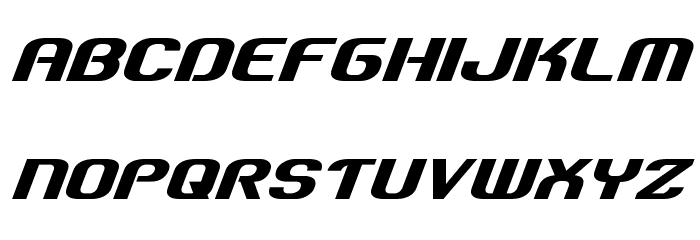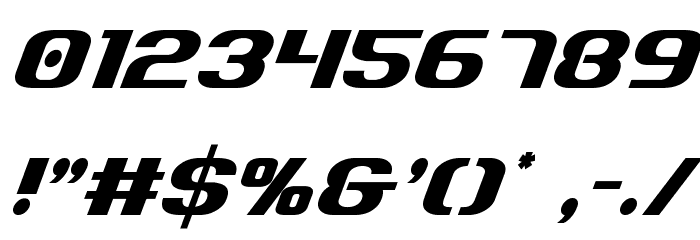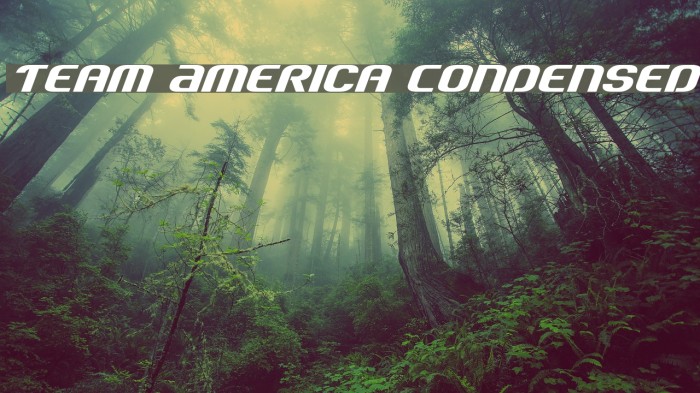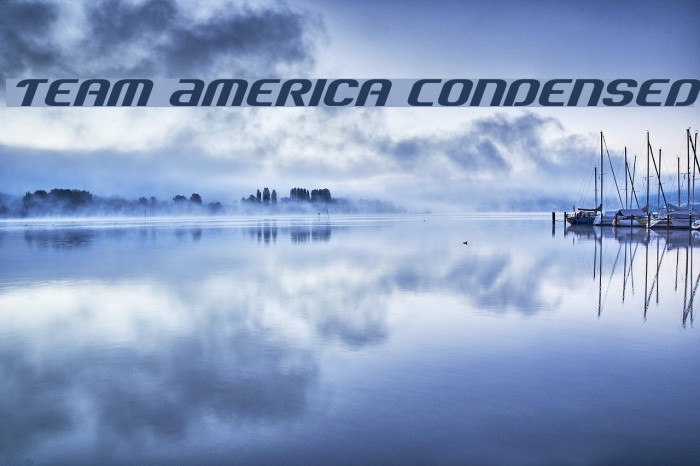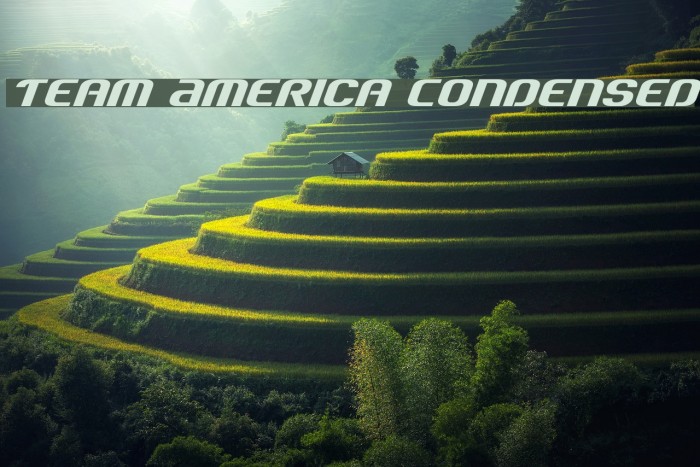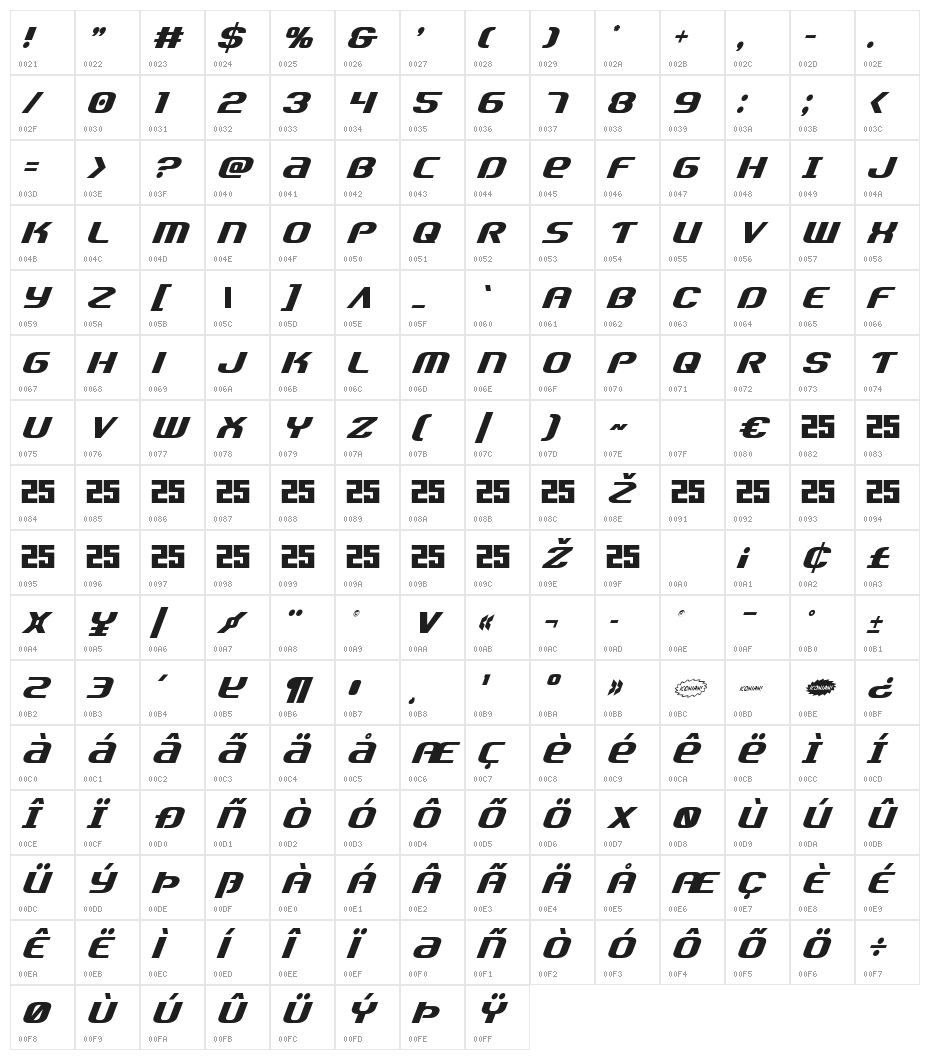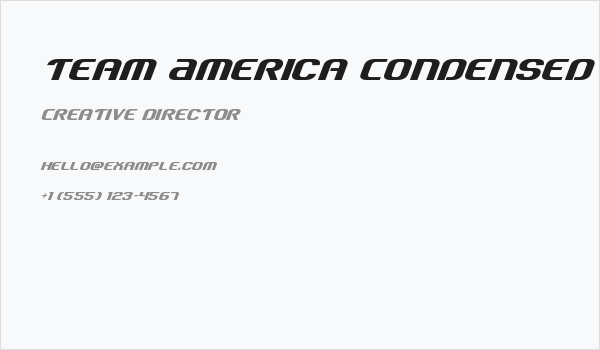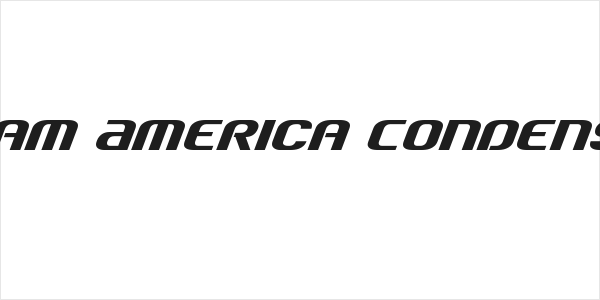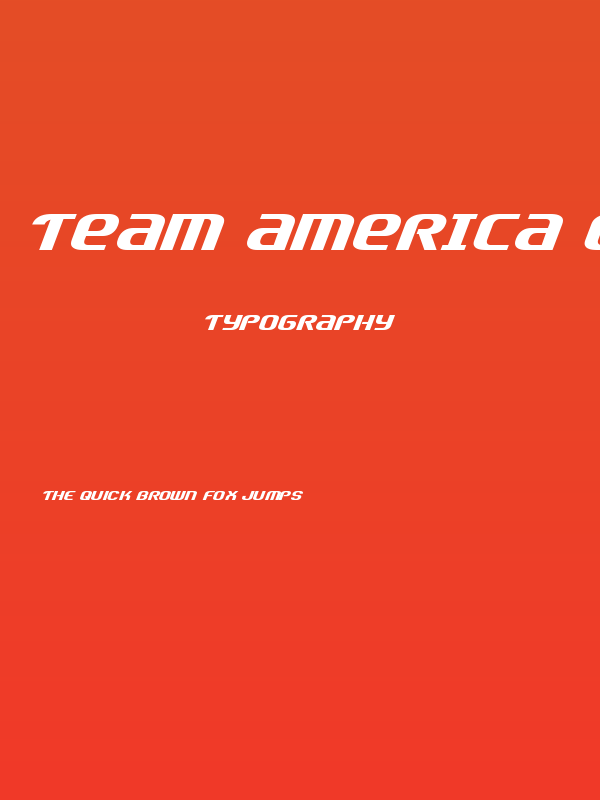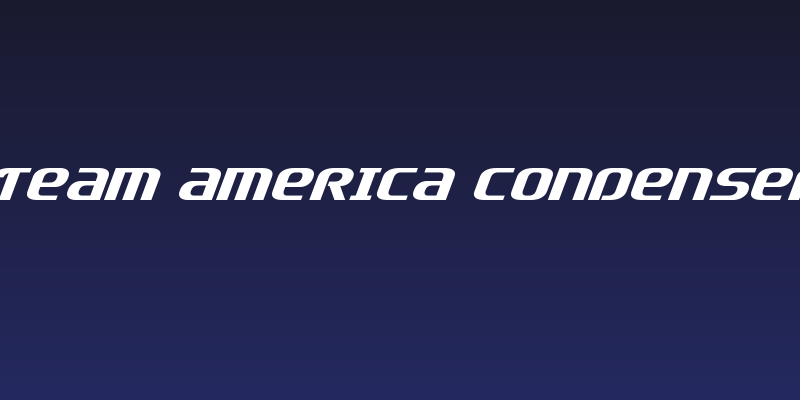
Team America Condensed Font
This font features a bold and dynamic style with a condensed width, giving it a strong and impactful presence. The characters are slightly italicized, adding a sense of motion and energy. The strokes are consistent in thickness, providing a medium contrast that enhances readability while maintaining a sleek appearance. The overall design is modern and sporty, making it suitable for projects that require a bold statement. The characters are tightly spaced, contributing to its compact and efficient look. This font is ideal for use in headlines, sports branding, and dynamic logos where a sense of speed and power is desired.
A bold, condensed, and slightly italicized font with a modern and sporty style.
- Proposed Projects: Ideal for sports branding, dynamic logos, and impactful headlines.
- Character Spacing: Tight